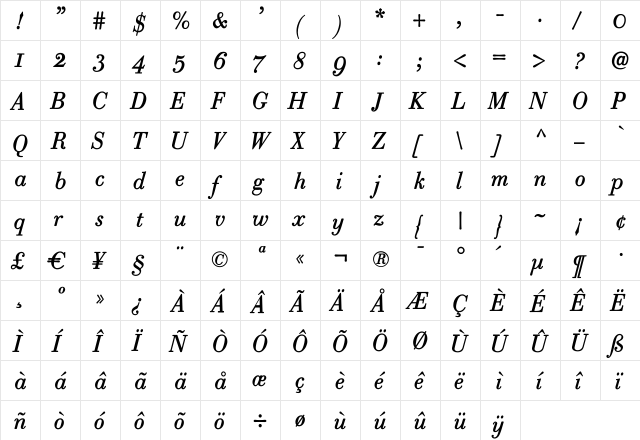
Robusta Roman Italic
Design Context for Robusta Typeface
Robusta takes a measured approach to typography — its balanced proportions and neutral character make it a reliable workhorse for both digital and print work. Its italic angle brings a sense of urgency and motion to the letterforms.